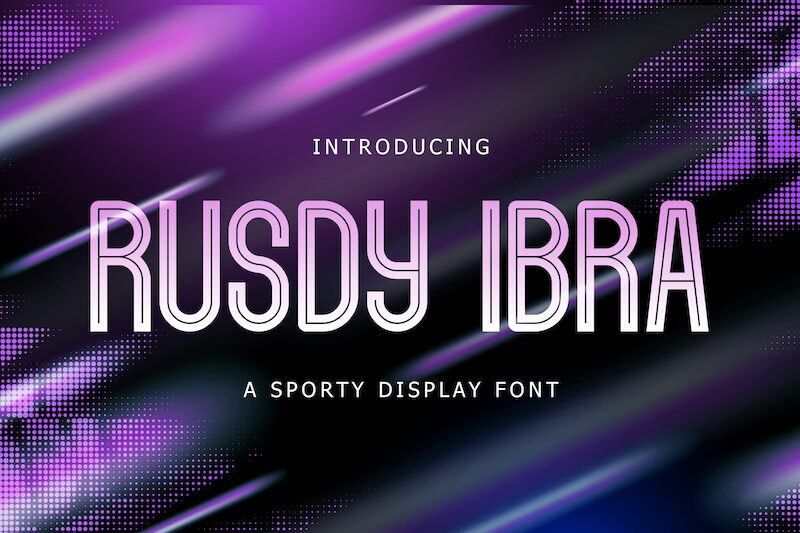
Rusdy Ibra
Rusdy Ibra font by StringLabs Creative Studio is a condensed sans serif typeface with an industrial and geometric aesthetic. Its modernist feel, retro influence, clean lines, and structured appearance give it an impressive architectural style that makes it the perfect font for headlines and titles.